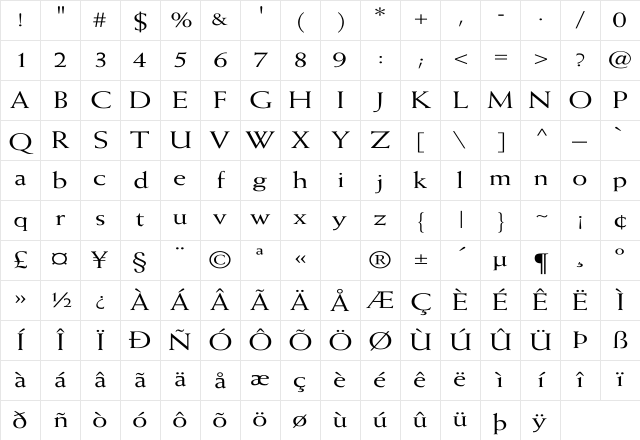
Design Context for Weiss Wd
Weiss Wd is a composed and adaptable typeface that performs quietly and consistently across a wide range of design contexts.